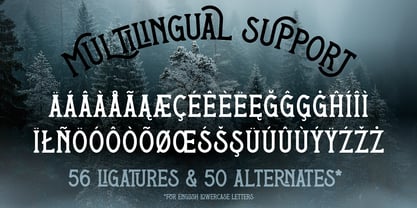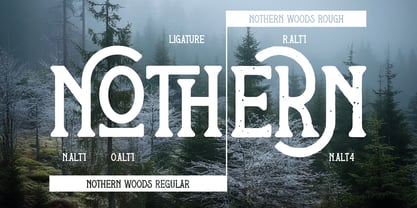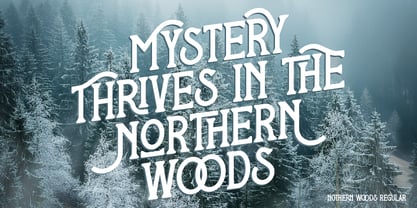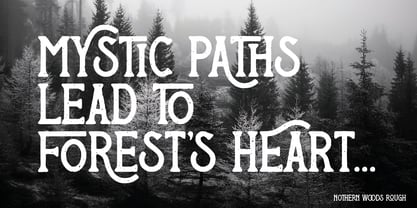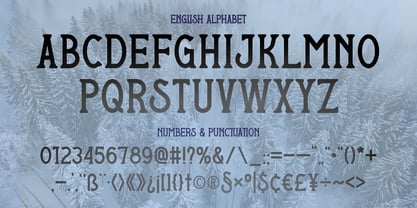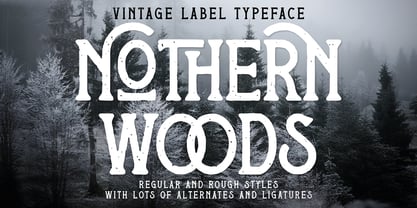
Nothern Woods
von Vozzy
Die Schriftfamilie Nothern Woods wurde von Oleg Voznyy entworfen und von Vozzy veröffentlicht. Nothern Woods enthält 2 Stile und Familienpaketoptionen. Mehr über diese Familie
Introducing the original display font "Nothern Woods" – a striking, handcrafted typeface made to stand out. This font includes extended characters, punctuation marks, and full multilingual support to suit a wide range of creative projects. It also features a rich set of stylistic ligatures to add extra flair to your designs. Whether you're working on posters, flyers, branding, or T-shirt graphics, this font brings personality and clarity to every layout. "Nothern Woods" was designed with attention to detail and a love for expressive typography. Try it out and give your work a unique, custom-made feel.
Designer: Oleg Voznyy
Foundry: Vozzy